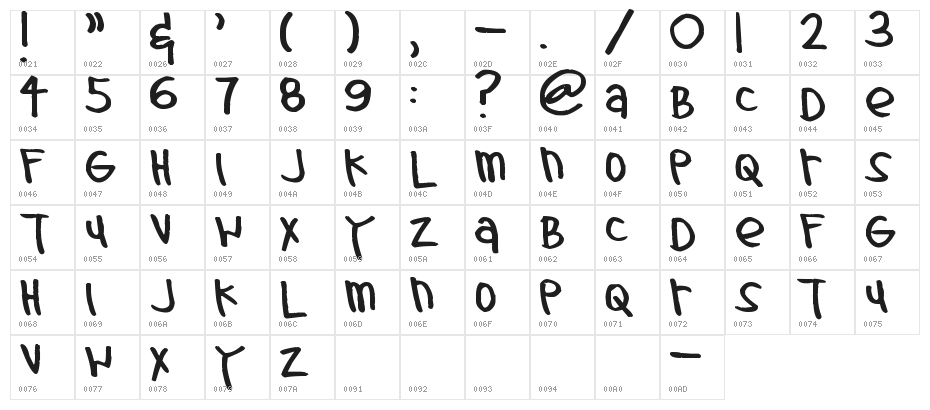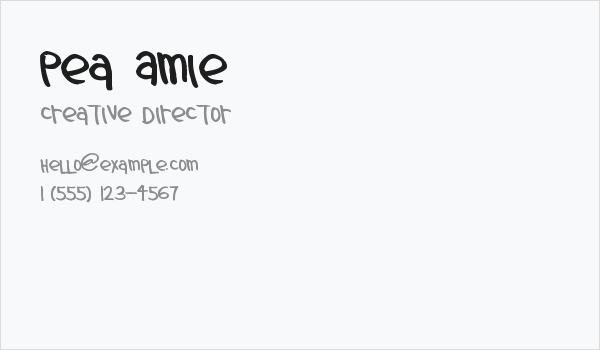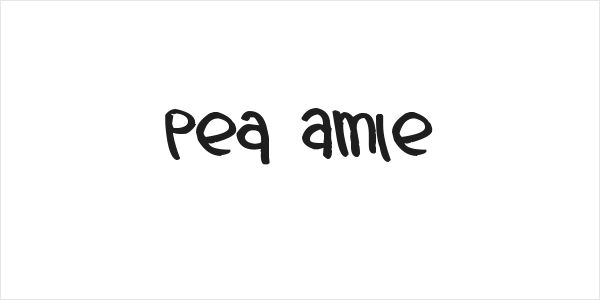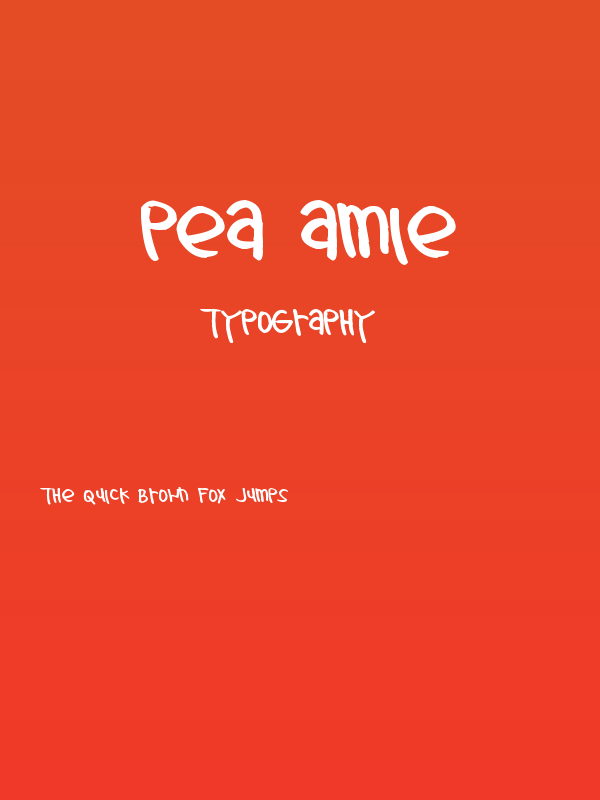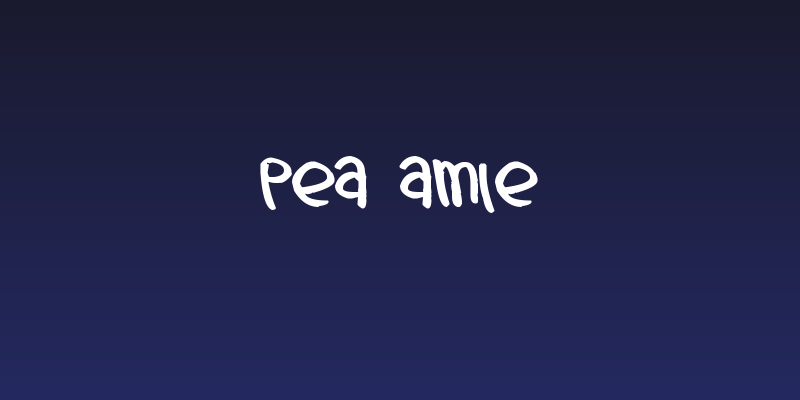
Pea Amie Font
Pea Amie Description
This playful and informal handwritten font features a casual and friendly style, characterized by its uneven strokes and slightly tilted letters. The font exudes a sense of spontaneity and creativity, making it ideal for projects that require a personal touch. Each character is distinct, with varying stroke widths that add to its charm and uniqueness. The font's organic flow and irregularities give it a lively and approachable feel, perfect for conveying warmth and personality. Its legibility is maintained despite the playful design, making it suitable for both short and medium-length text.
| Use Case | Headlines, Logos, Informal text |
| Proposed Projects | Ideal for greeting cards, personal blogs, children's books, and creative branding projects. |